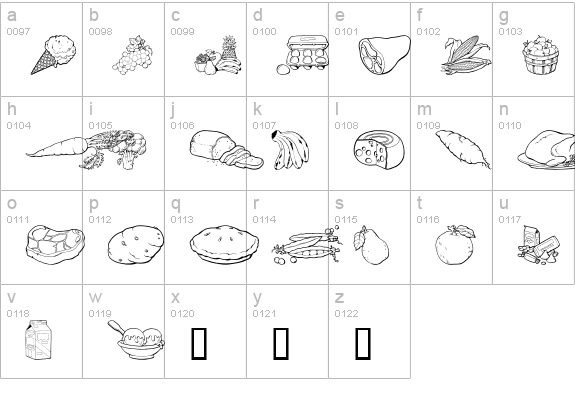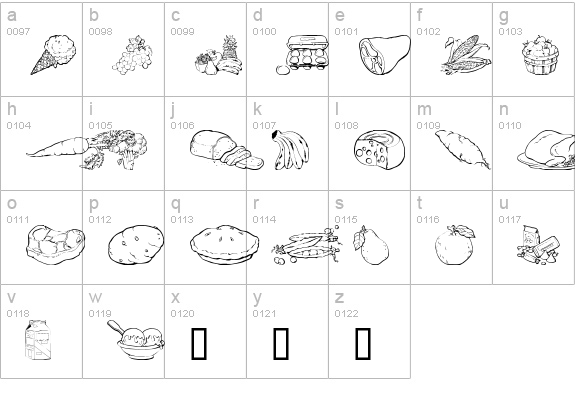
GE Food Basket Font Details
Introducing the GE Food Basket font - a unique and playful typeface designed to add a touch of creativity to your projects. This font features organic shapes and a whimsical style that is perfect for food-related designs, branding, packaging, and more. The GE Food Basket font is not only visually appealing but also easy to read, making it a versatile choice for a variety of design applications. Best of all, the GE Food Basket font is available for free download at FontsMarket.com. Whether you're a designer looking to add a fun twist to your projects or a food blogger wanting to spice up your website, this font is a must-have in your collection. Don't miss out on the opportunity to enhance your designs with the charming and free-spirited GE Food Basket font. Download it today and let your creativity flourish!